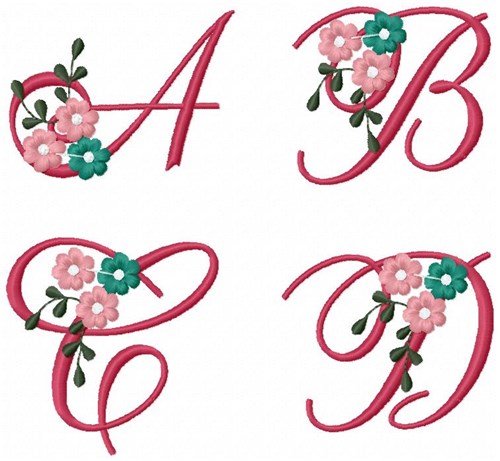
Satin Stripes is happy to present Floral Curves Monogram Embrilliance Embroidery Font - Elegant Romantic Decorative Script - BX font machine embroidery font which has Floral script machine embroidery font with flowing letters A, B, C, and D, embellished with pink and turquoise flowers. Ideal for creating charming designs on spring-themed home decor. Available in BX font and Embrilliance formats. included. If you would like to view more embroidery fonts and alphabets please search our embroidery fonts page.
Floral Curves Monogram Embrilliance Embroidery Font - Elegant Romantic Decorative Script - BX font